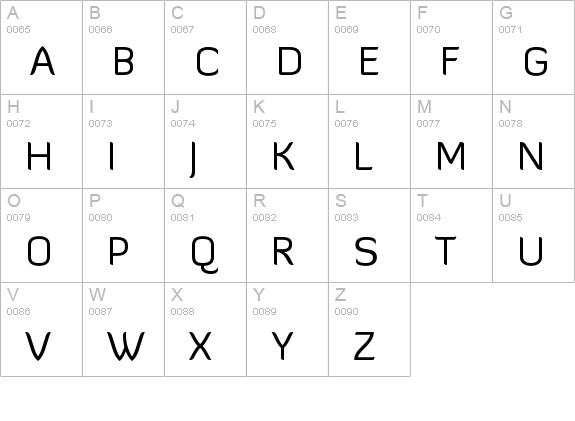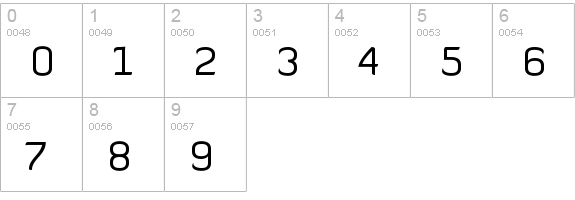
Diavlo Book Regular is a comfortable, highly readable variant in the Diavlo typeface family \xE2\x80\x94 well suited to long-form body text, articles, and editorial content.
Diavlo Book Regular font is a versatile typeface that exudes elegance and sophistication. With its clean lines and timeless appeal, this font is perfect for a wide range of design projects. Whether you're creating a professional document, designing a website, or crafting a stunning poster, Diavlo Book Regular will bring a touch of class to your work. This font is available for free download at FontsMarket.com, making it easily accessible for designers and creatives looking to elevate their projects. With its sleek and modern aesthetic, Diavlo Book Regular is sure to make a statement and leave a lasting impression. Don't miss out on the opportunity to enhance your designs with this beautiful font that is just a click away. Download Diavlo Book Regular today and watch your creations come to life!